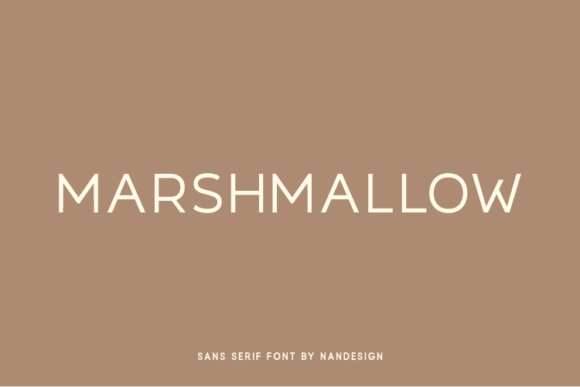
Are you looking for the best font to create an unforgettable impression? Look no further than Marshmallow Font! This stunning sans serif is designed to elevate your project and add a touch of elegance and sophistication to any design.
Created by the talented team at Nan Design, Marshmallow is the perfect choice for those searching for the best fonts for tattoo quotes. With its clean lines and unique style, this font is ideal for creating beautiful headings, gorgeous invitations, stunning logos, and so much more!
Whether you're designing for displays, headers, invitations, save the dates, or weddings, Marshmallow Font is the perfect choice. Its uppercase alphabet, numbers, and symbols make it incredibly versatile, allowing you to create the perfect design for any occasion.
But Marshmallow Font isn't just versatile and stunning – it's also easy to use. With its clean lines and clear design, this font is perfect for creating eye-catching designs that grab attention and leave a lasting impression.